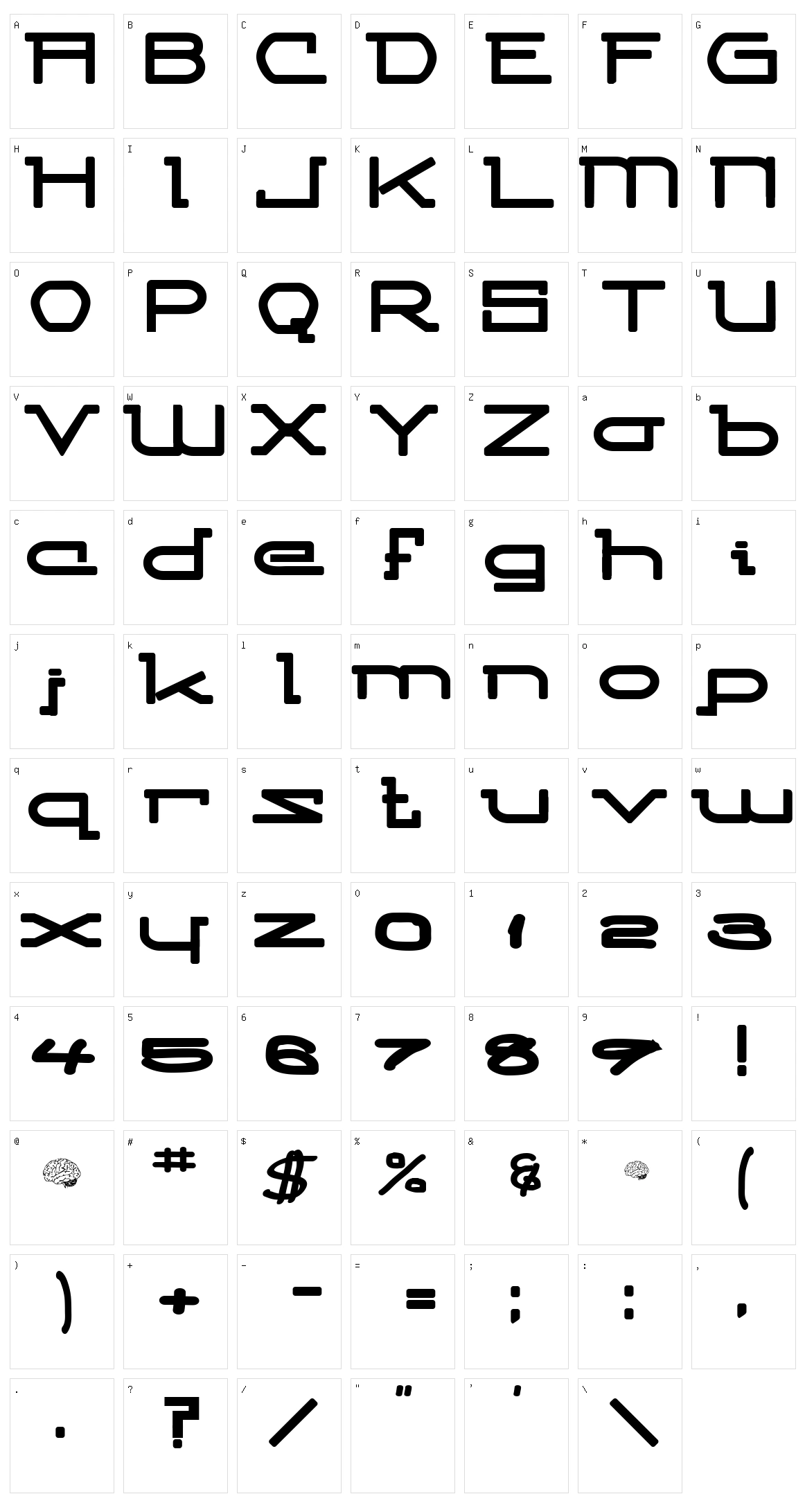
Competitor
Designed by: Brain Stew Fonts
This font was created by
B R A I N S T E W F O N T S
This font is called "Competitor".
It is based on a lettering style used by Rpbert "cos'" Cosgrove.